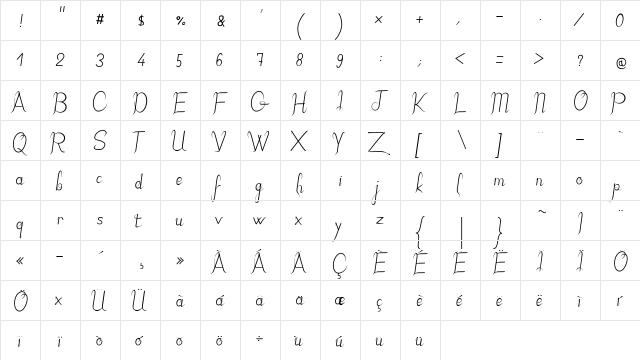
JBElegant regular
Design Context for JBElegant Typeface
JBElegant takes a measured approach to typography — its balanced proportions and neutral character make it a reliable workhorse for both digital and print work.